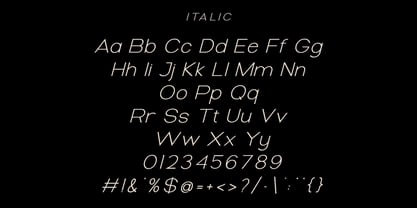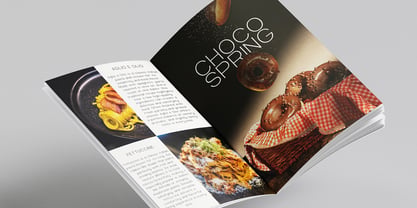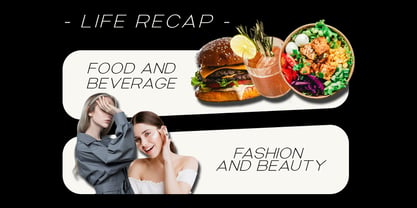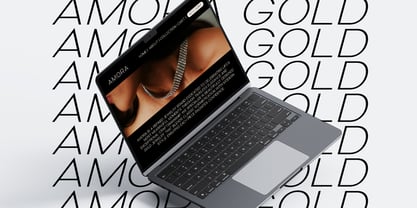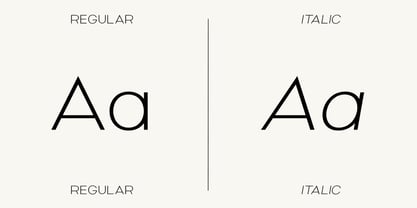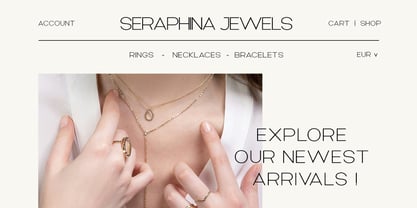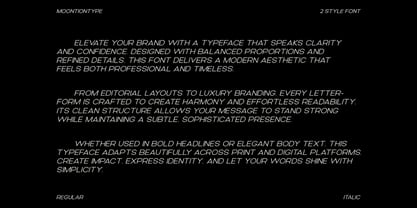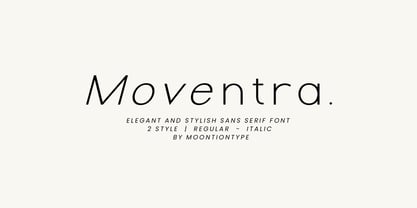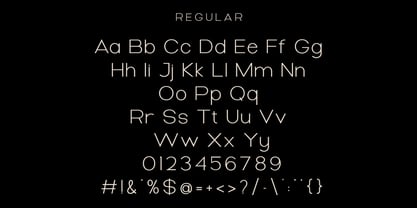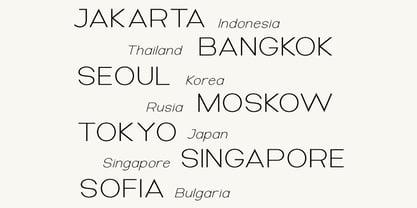
Moventra
by Moontiontype
The Moventra Font Family was designed by Dinda Nur Dwiyanti and published by Moontiontype. Moventra contains 2 styles and family package options. More about this family
Moventra is an elegant and stylish sans serif font designed to bring a modern luxury feel to your creative projects. With its clean lines, refined curves, and minimalist aesthetic, Moventra is perfect for high-end branding and sophisticated designs. This typeface blends simplicity with elegance, making it ideal for fashion brands, jewelry logos, editorial layouts, websites, and social media visuals. Whether you're building a luxury brand identity or designing a chic website header, Moventra adds timeless beauty and confidence to your typography. Perfect For: Luxury logo design Fashion branding Jewelry branding Editorial magazines Website headers Packaging design Instagram quotes & content Wedding invitations Modern business branding Thank You Moontiontype
Designers: Dinda Nur Dwiyanti
Foundry: Moontiontype